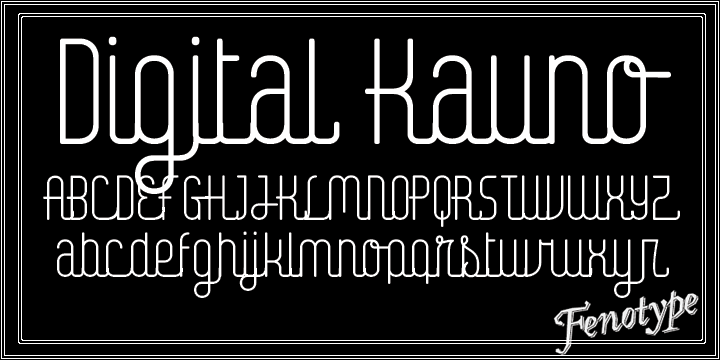
Digital Kauno is a soft geometric script type. It is recommended for headlines and display use.
Digital Kauno was originally designed in 2002 and it has now been redesigned with full character set and more distinctive letters.